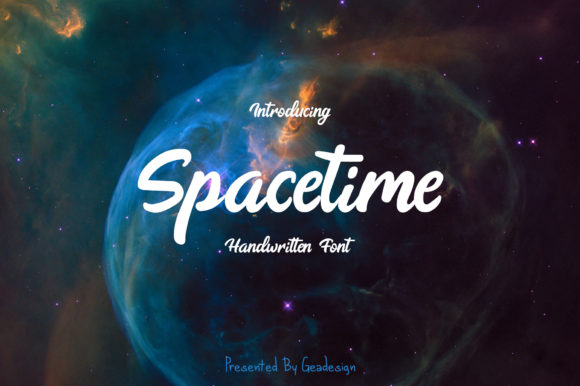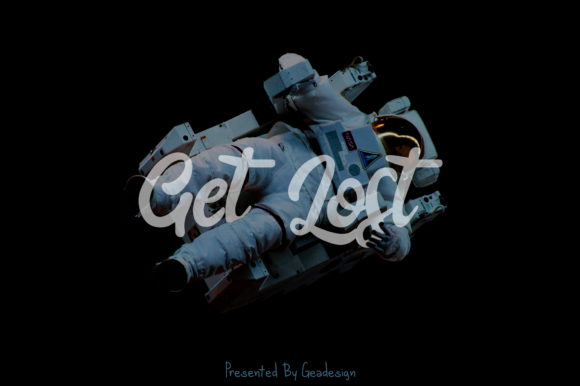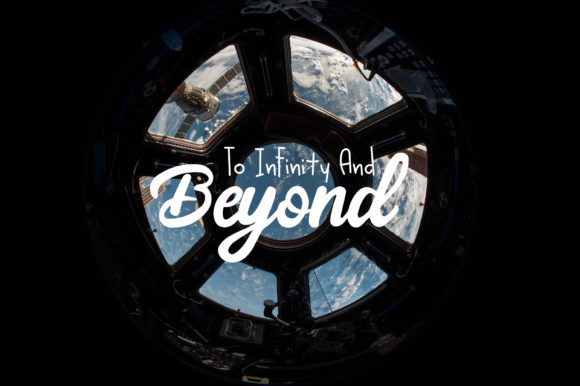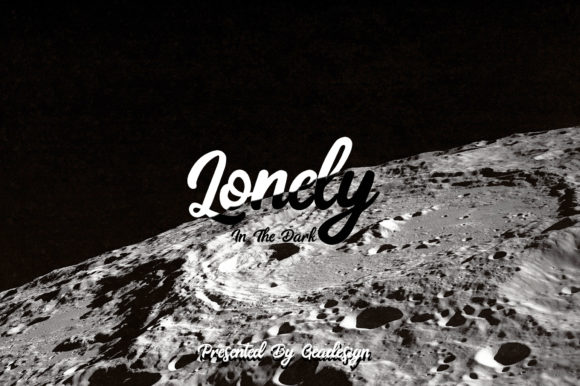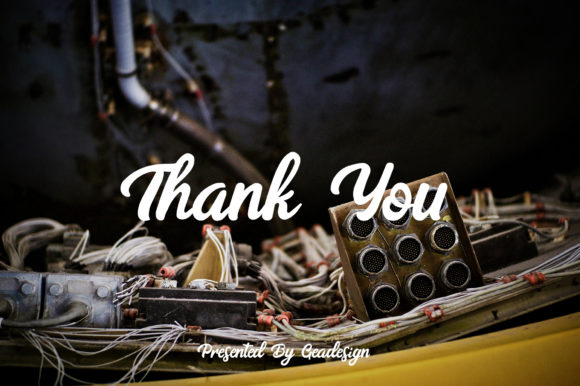
Spacetime Font
About Spacetime Font
Spacetime is a cool, simple and elegant handwritten font with a bold twist. It will add an authentic touch to any design idea!